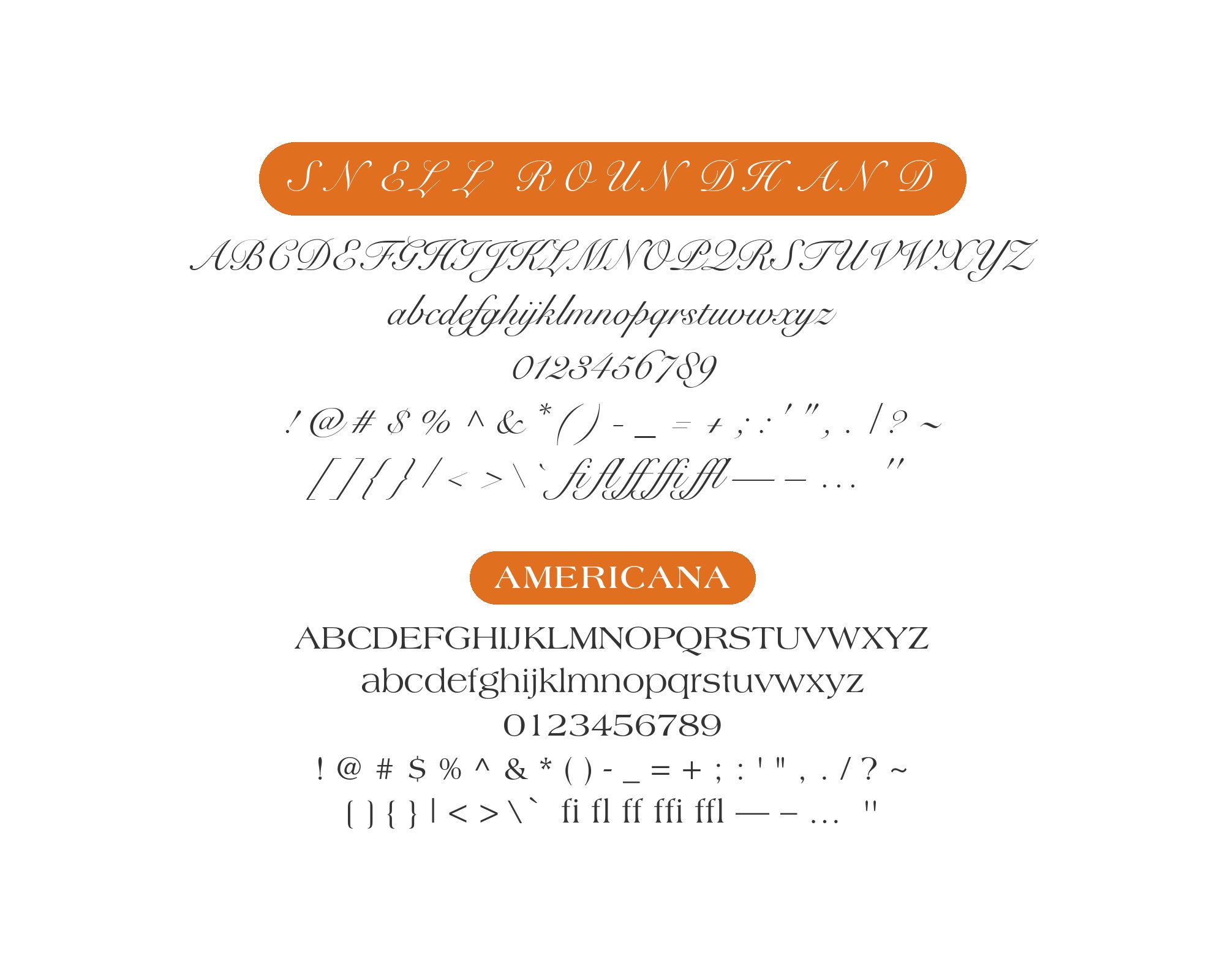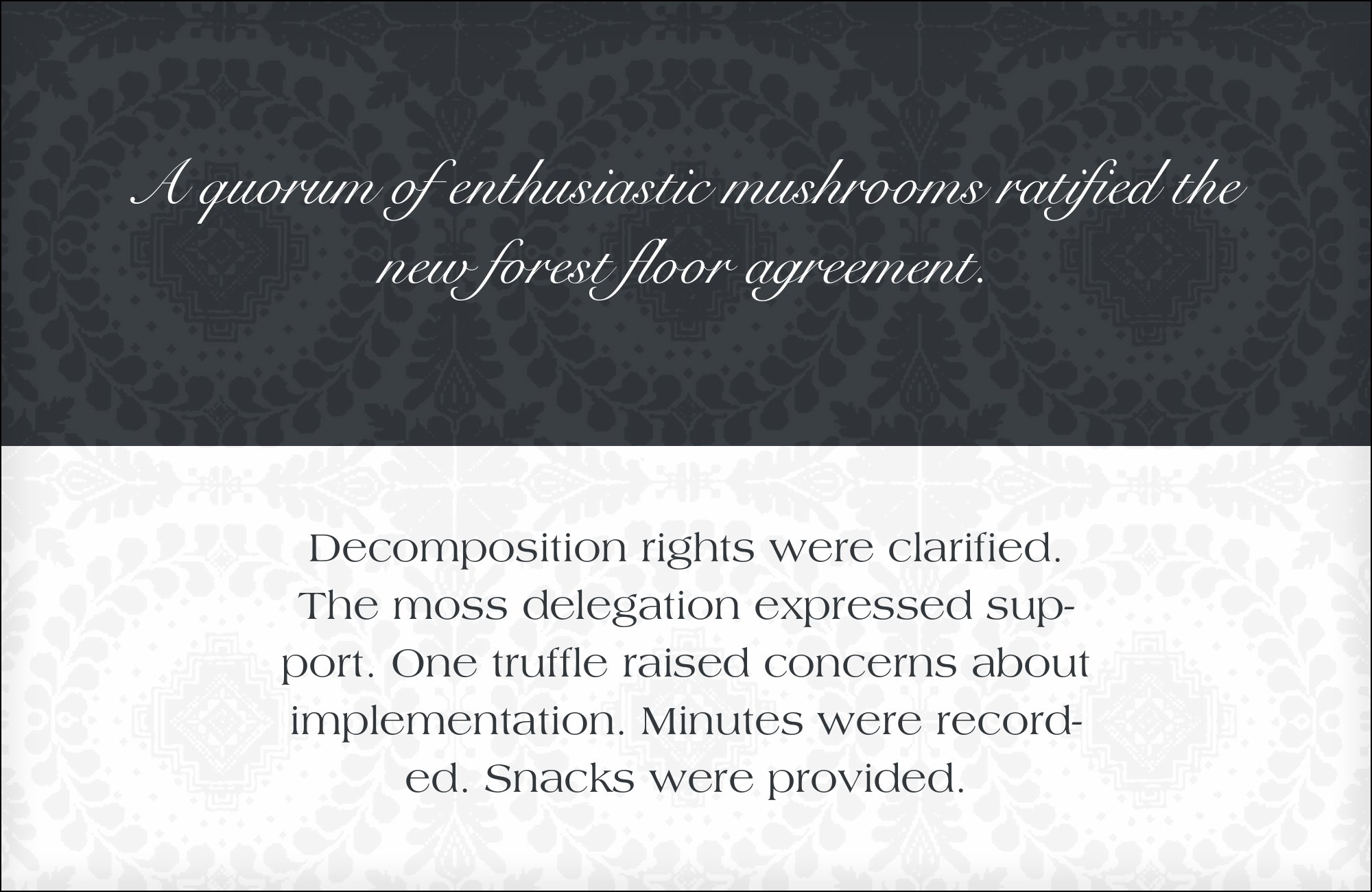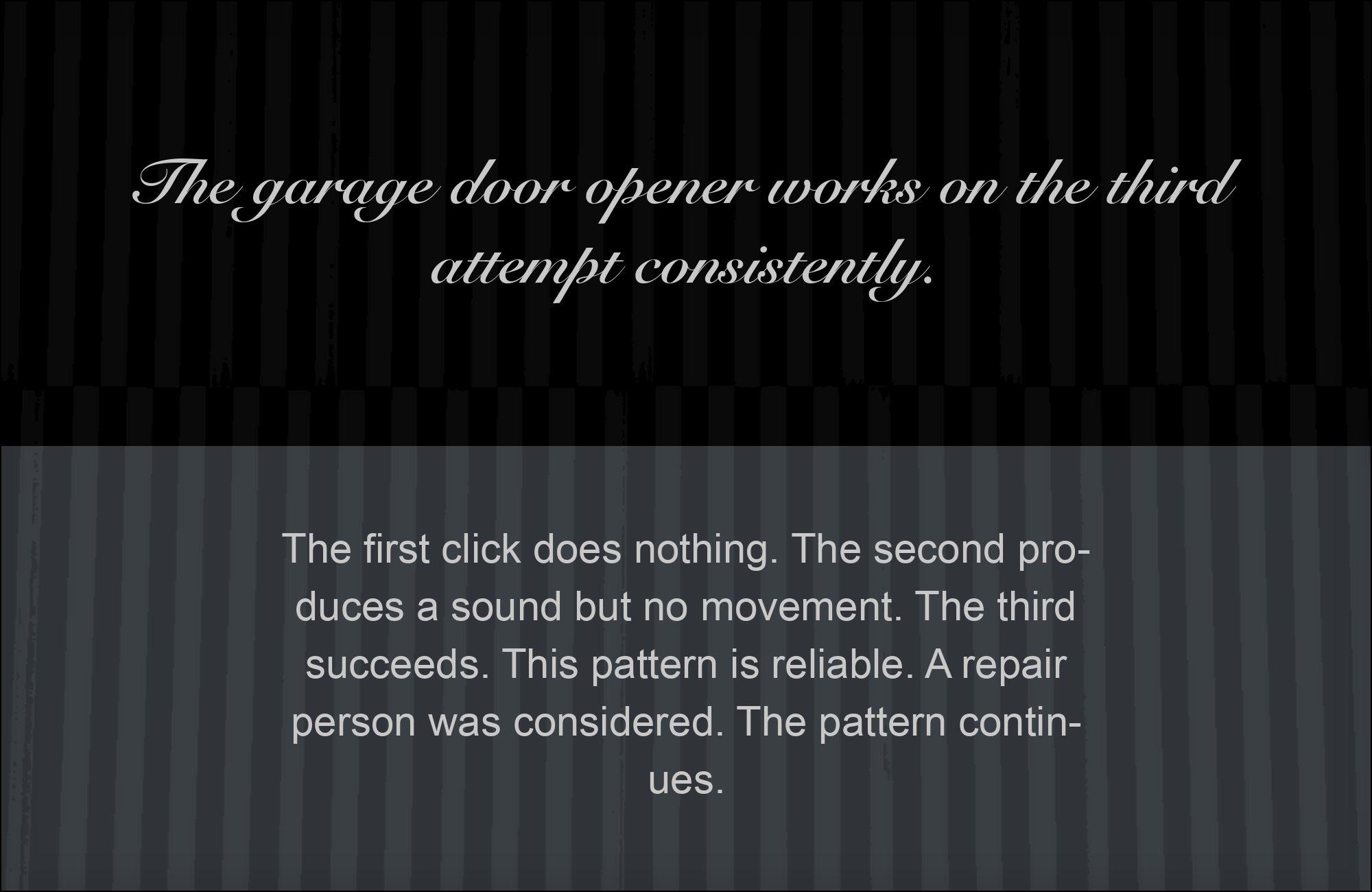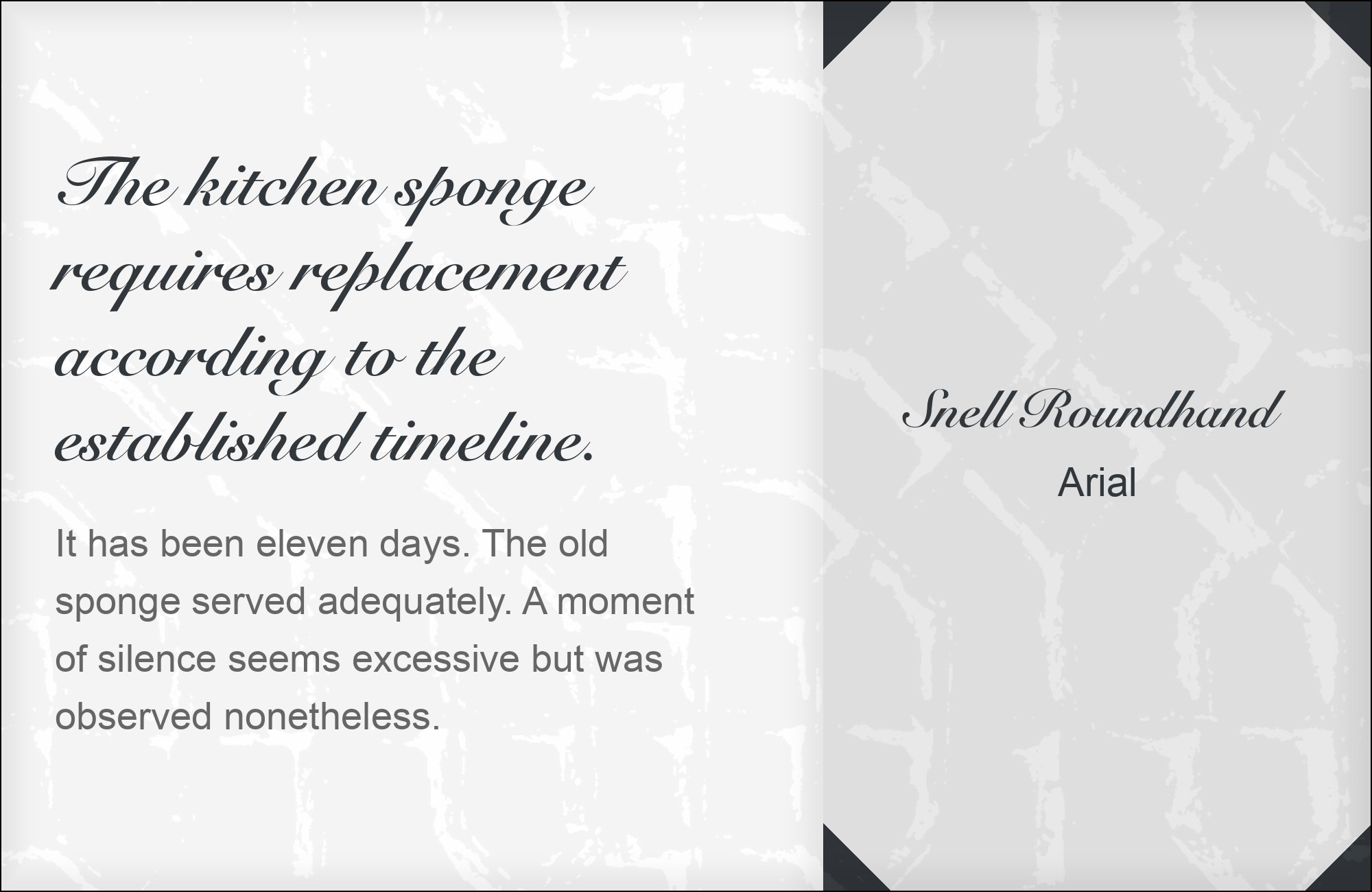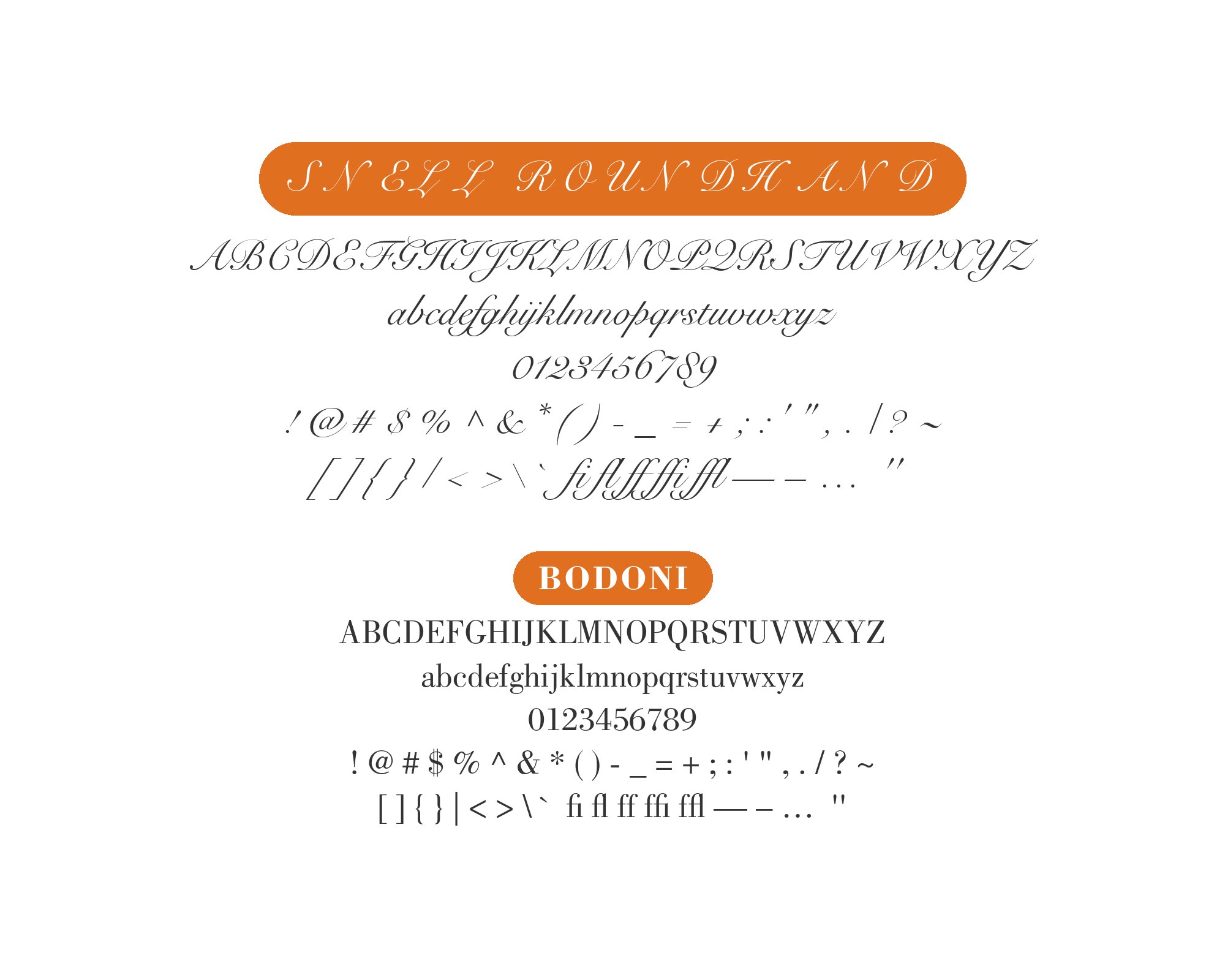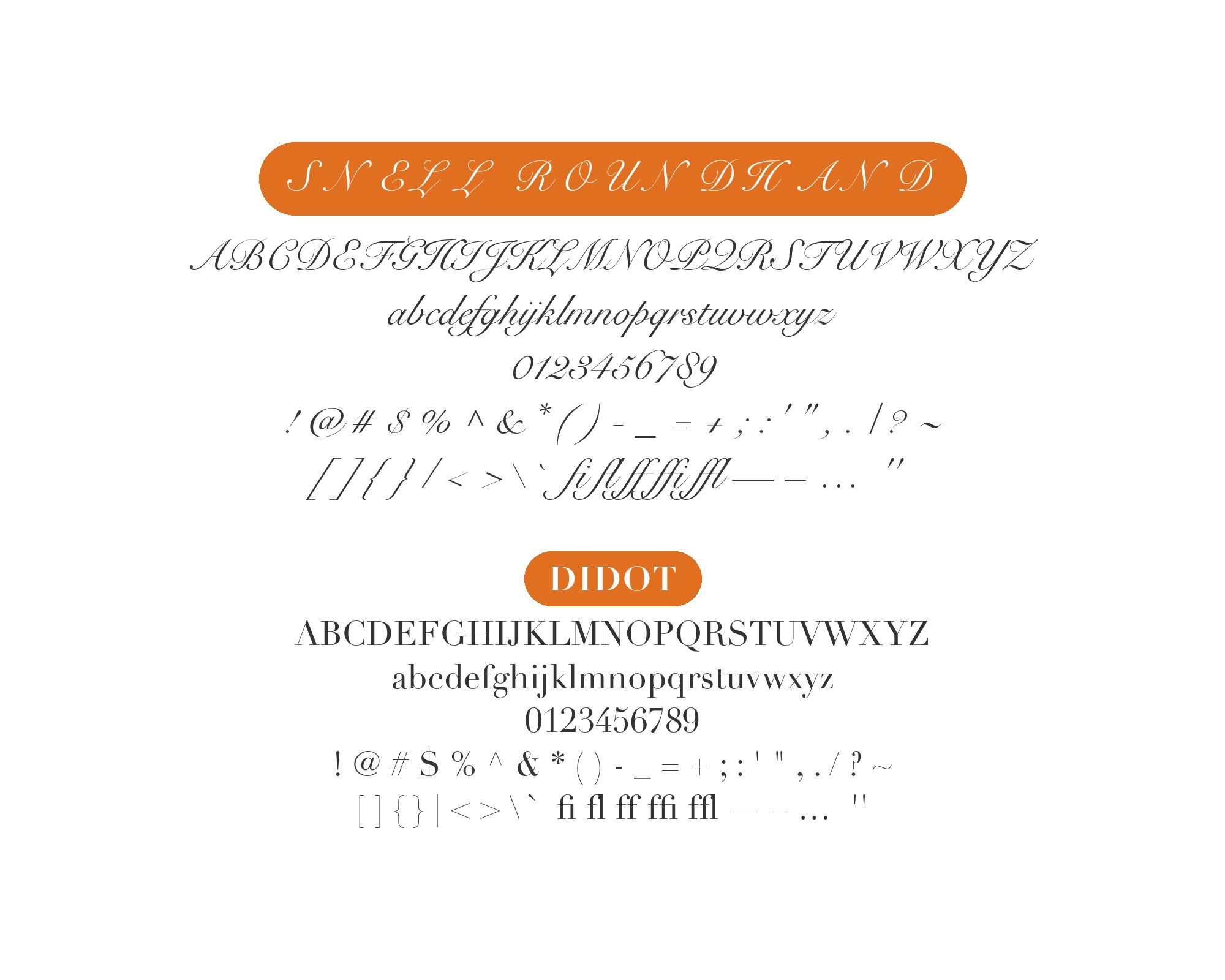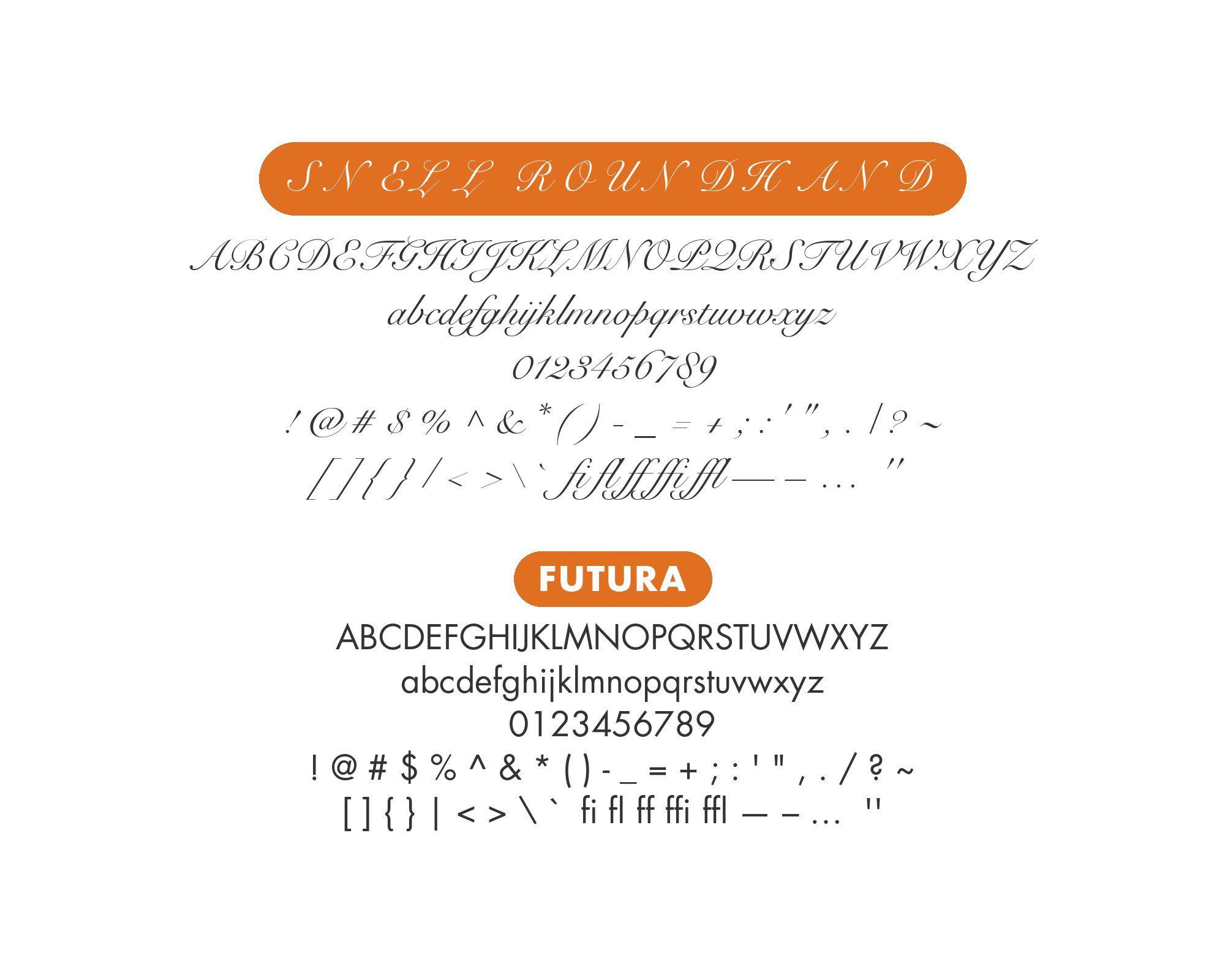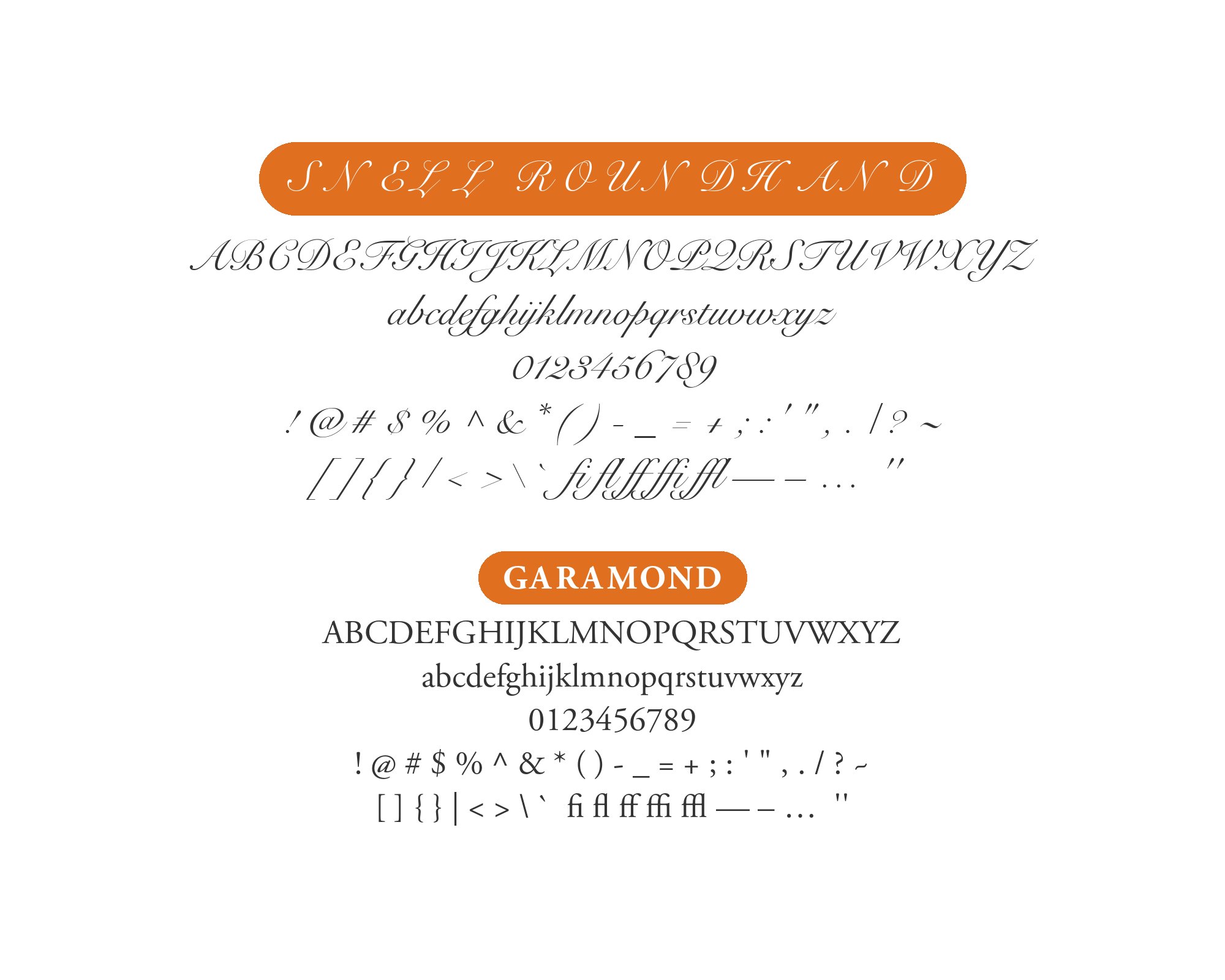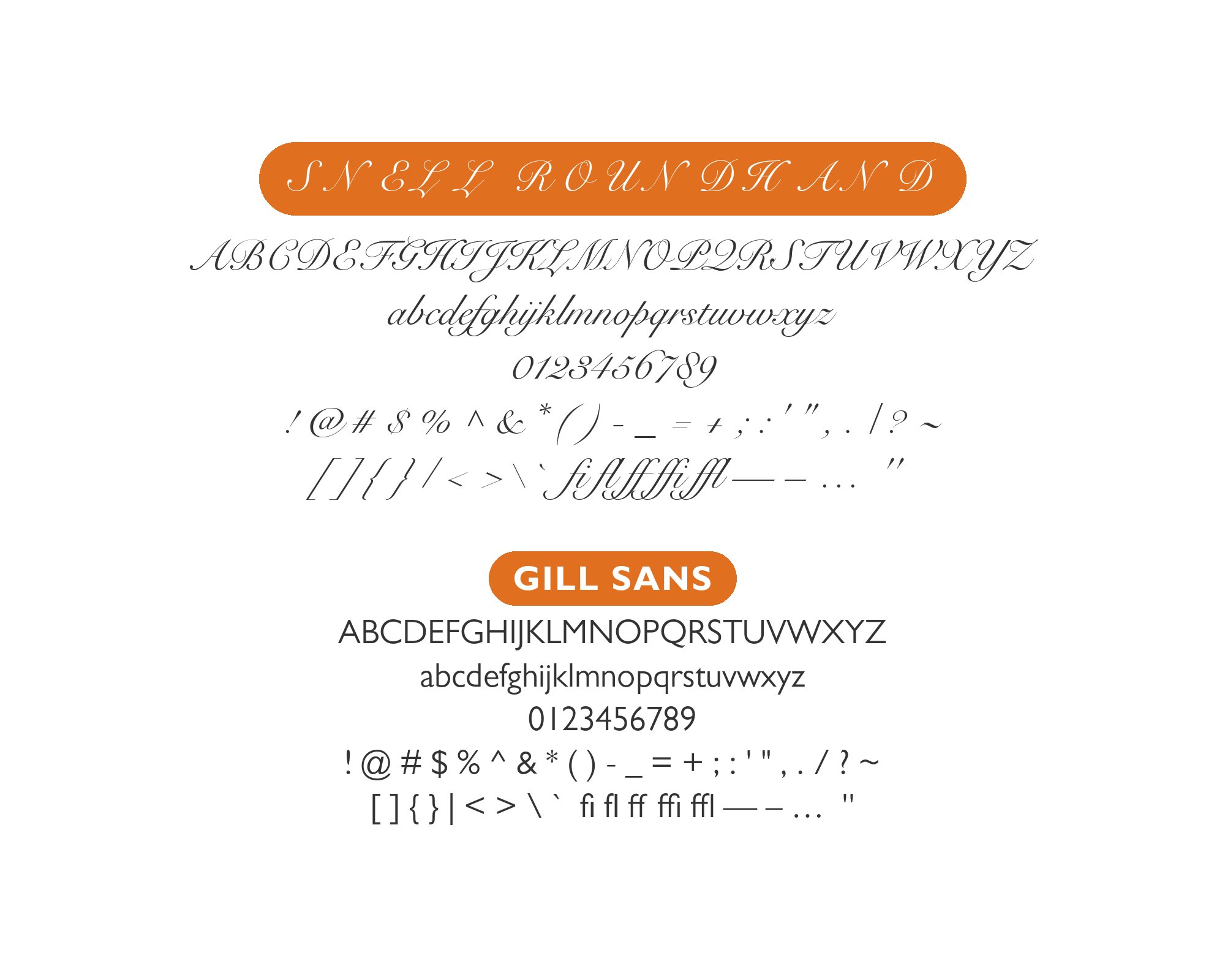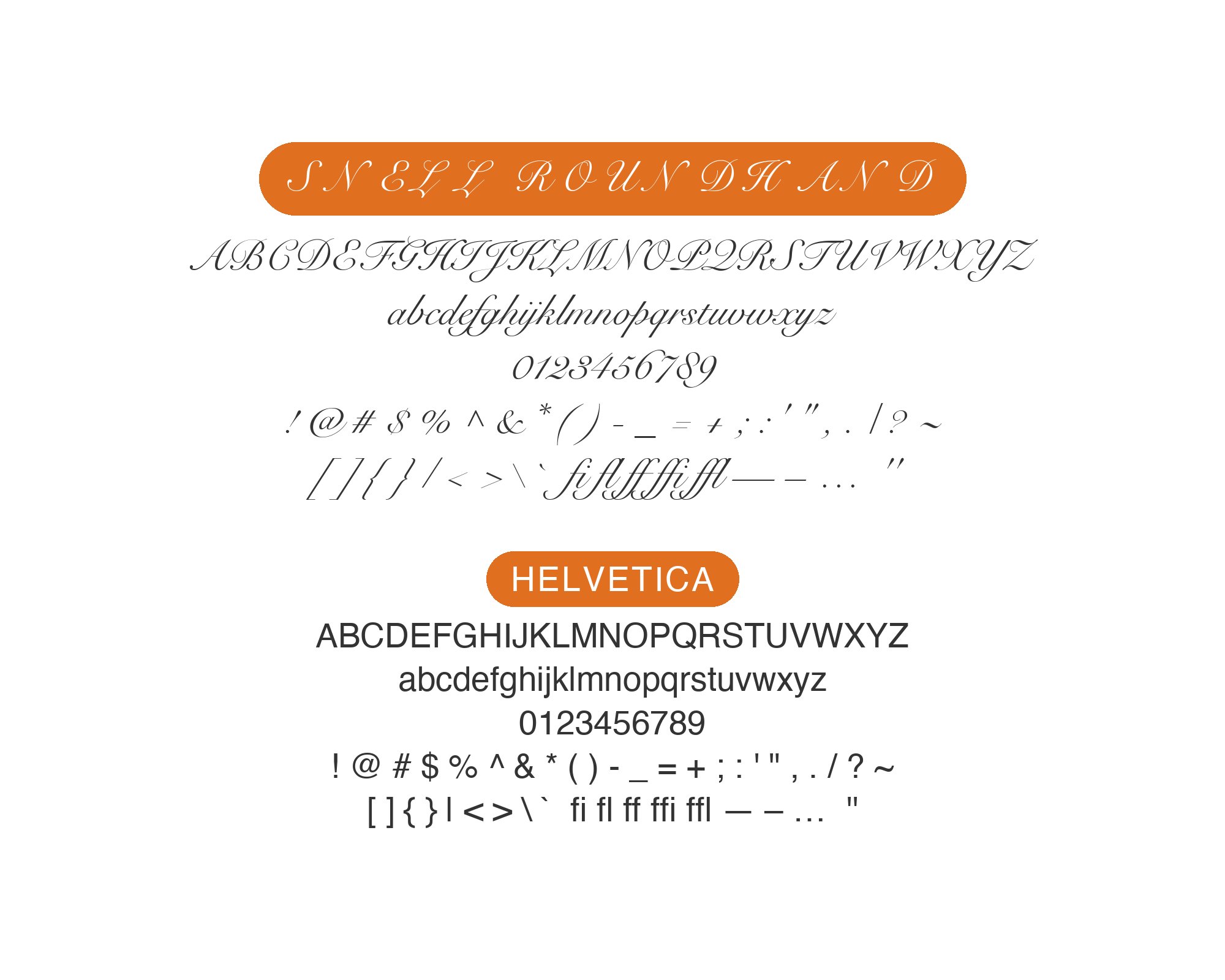
Snell Roundhand pairs great with Helvetica, Helvetica Neue and Americana. All 15 pairings are shown below in real rendered specimens, with the reason each one works.
What fonts go with Snell Roundhand? Almost none of them, if you go looking for a second decorative face. A formal connecting script is already the loudest thing on the page, and the partner’s only job is to be sober enough to carry everything the script cannot.
Sources disagree on the date: Adobe Fonts says Matthew Carter designed Snell Roundhand in 1965, while Typewolf and Fonts In Use date it to 1966. Carter translated the hand of the seventeenth-century English writing master Charles Snell into type for photocomposition. Carter later added bold and black weights to the original, and Bitstream released its own version under the name Roundhand. Apple’s current macOS font list includes Snell Roundhand Regular, Bold, and Black, which makes the family readily available to Mac users. The letterforms carry extreme stroke contrast — swelling shaded downstrokes against hairline upstrokes — on a steep slope, with long ascenders, deep descenders and capitals built from looping flourishes that were designed to work as initials next to other alphabets.
What the record shows is role separation, not contrast for its own sake: the script supplies the signature, and one plain text face supplies the argument. Across archived uses and identity manuals, recurring partners include neutral sans serifs and classical serifs. My practical rule is to avoid a second script and reserve Snell Roundhand for display use. Its fine strokes and connected forms need testing at the intended size and output medium. Here are 15 fonts that pair well with Snell Roundhand, ordered by how well the evidence supports them.
1. Helvetica
Max Miedinger and Eduard Hoffmann designed Helvetica at Switzerland’s Haas Type Foundry in 1957, and in 1959 it was adapted for Linotype machines and renamed Helvetica. Fonts In Use production pages for Phyllis Hyman, Le Ciel Noir and Bar Versini document Helvetica with Snell Roundhand; a separate whitehouse.gov survey covering 2000-2026 lists both but does not prove they appeared together in one design. The structural reason is total absence of calligraphic memory: Helvetica’s strokes are near-uniform, its terminals cut on the horizontal, its apertures closed, its axis perfectly vertical. Nothing in it recalls a pen, so nothing in it competes with the roundhand’s shaded downstrokes. The 1977 Phyllis Hyman album cover shows the division in its purest form — the singer’s name set in Snell, the entire back cover, including credits and track listing, set in styles of Helvetica. Use it exactly that way: Snell for the name or masthead, Helvetica for every other word on the surface.
2. Helvetica Neue
Linotype’s 1983 redraw of Helvetica, published as Neue Helvetica, rationalised the family onto a numbered two-digit grid and evened out optical weights that had drifted apart across decades of separate cuts. Production pages for Drake’s More Life, PEW PEW PEW and Online Gallery Magazine list Helvetica Neue with Snell Roundhand; the whitehouse.gov survey is supporting historical evidence only. Its advantage in this pairing is range rather than shape: a script gives you one register and one weight of voice, so the partner has to supply every subordinate level — deck, caption, label, legal line — without any style breaking rank. The artwork for Drake’s More Life uses Neue Helvetica, mostly Black Extended, with Snell Roundhand. Build the hierarchy in Helvetica Neue first, then add the script once.
3. Americana
Richard Isbell designed Americana for American Type Founders in 1966, the year Typewolf gives for Snell Roundhand, as a flare-serif face whose stems swell outward into shallow, unbracketed flares rather than terminating in true serifs. Americana is Typewolf’s own suggested pairing for Snell Roundhand, and it is the only named editorial recommendation to be found for this face. The reasoning holds structurally. Americana’s letterforms are unusually wide with a large x-height, which gives standing text a stable, airy measure under the horizontal sprawl a connecting script demands, and its flared stems quietly echo the roundhand’s swelling strokes without ever becoming cursive themselves. Because the two faces are effectively the same vintage, the combination also reads as period-coherent rather than assembled. It suits an invitation or event program, where Snell sets the headings and Americana the standing text.
4. Trade Gothic
Jackson Burke designed Trade Gothic for Linotype beginning in 1948 and expanded it through 1960 into a family of widths, drawing on Akzidenz-Grotesk. It appears with Snell Roundhand on Roxette’s Room Service and the Enablis annual report. The 2001 Roxette Room Service sleeve is the instructive one: the band name is Snell Roundhand, and the album title is Trade Gothic Bold Condensed No. 20 horizontally squeezed to eighty percent. That is a deliberate extreme — the narrowest available sans set against the widest possible script. Condensed grotesques buy back the horizontal space a roundhand spends on entry and exit strokes, which is why they keep appearing on packaging and record sleeves where width is scarce. Use Trade Gothic for a track list or an ingredient panel — anything that must fit a fixed measure.
Talk to Douglas5. Futura
Paul Renner designed Futura for the Bauer foundry in 1927 from compass-and-straightedge geometry — circular bowls, pointed apexes, a single-storey a and a low x-height that gives the face its long, spare ascenders. It appears with Snell Roundhand on Blue Bell Ice Cream’s packaging and Roxette’s 1992 “Church of Your Heart” sleeve, where the band name is Futura Bold and the back cover carries Futura Extra Bold. Geometric construction shares no ancestry at all with a written hand: the roundhand records the pressure and angle of a flexible nib, while Futura records a drawing instrument. Nothing about the meeting is accidental-looking, which is the point. Reserve Snell for the brand signature and let Futura carry flavour names, weights, dates and every other piece of factual copy.
6. Garamond
Claude Garamond cut the original French Renaissance romans in the mid-sixteenth century, and Robert Slimbach’s 1989 revival for Adobe is the version documented here: Garamond appears on the back cover of that Roxette single, a sleeve that also uses Snell Roundhand. An old-style serif is the closest relative Snell has among text faces. Both descend from pen-made letters, so both carry an angled stress, an oblique axis through the bowls and a calligraphic asymmetry that a grotesque simply does not have. The difference is tempo: Garamond is the same logic slowed down, regularised and set upright for reading at length. Its small x-height and fine modelling make it a poor screen choice but an excellent print one. Use it for invitation body copy and anything else that must be read in quantity on paper.
7. Bembo
Monotype issued Bembo in 1929, based on the roman Francesco Griffo cut for Aldus Manutius in 1495. Those capitals are the reason it works here. On Roxette’s 1992 “Church of Your Heart” sleeve the title is set in Bembo caps on a sleeve that also uses Snell Roundhand, and the caps hold their ground without raising their voice: small apertures, modest contrast, classical width relationships and no flourishes anywhere. Set against a steeply sloped, looping script, a block of symmetrical inscriptional capitals reads as architecture rather than as a second lettering style. Bembo’s low x-height also keeps it visually subordinate at matched point sizes. Use it for book jackets, record sleeves and title pages where a short line of caps must sit above or below the script.
Stuck on AI? Let's sit down together.
One hour, your screen, your questions.
Book an Hour8. Goudy Old Style
Frederic Goudy designed Goudy Old Style for American Type Founders in 1915, giving it diamond-shaped dots, a slightly upturned ear on the g and curves that retain a trace of the drawing hand rather than being fully rationalised. It appears with Snell Roundhand on Blue Bell Ice Cream’s packaging, alongside the decorative inline companion Goudy Handtooled. That combination is the standard American heritage formula and it is worth copying deliberately: a connecting script for the founder’s or maker’s signature, a warm early-twentieth-century old style for the product description underneath. Goudy’s residual irregularity supplies period warmth, but its letters are separate, upright and fully legible at small size, so it never reads as a second script. Use it for heritage food packaging where the brand wants to sound long-established rather than merely formal.
9. Univers
Adrian Frutiger designed Univers for Deberny & Peignot in 1957, releasing it as a coordinated system of variants identified by two-digit numbers rather than by names, with weight on the first digit and width on the second. It appears with Snell Roundhand in Cossette’s 2010 Enablis annual report, a document built on bold typographic contrast. Systematic families matter most in long documents, where a designer needs eight or ten distinct levels of emphasis that all look related. Univers delivers that hierarchy from a single drawing logic, so the script can be rationed to one appearance per spread and still feel like part of the same system rather than a pasted-in ornament. Use it for a long annual report, where a script would exhaust the reader if it repeated.
10. Gill Sans
Eric Gill designed Gill Sans for Monotype in 1928, developing it from Edward Johnston’s London Underground alphabet and building it on humanist rather than grotesque skeletons: classical Roman width relationships, a near-circular O, a two-storey a and a g with a distinctive open lower bowl. It sets the secondary text on the 2025 Jennie Ruby campaign posters, where Snell Roundhand is one of three faces used consistently through the rollout. Gill Sans occupies a useful middle position for this pairing. Its proportions come from written and inscribed letters, so it shares a distant pedigree with the roundhand, but the strokes are monoline and the axis is upright, so it reads as calm. Use it for fashion and music campaign material where a pure Swiss grotesque would feel too cold beneath the script.
11. Franklin Gothic
Morris Fuller Benton designed Franklin Gothic for American Type Founders in 1902, and it became the definitive heavy American gothic: sturdy, slightly irregular, with a large x-height, tight apertures and a thickness that reads as plain-spoken rather than refined. It appears with Snell Roundhand on You Don’t Know Jack volume 3 from 1997, and the ratio there is the whole lesson. Franklin Gothic is the primary typeface of the entire product, while Snell Roundhand Black shows up exactly once, for a single flourished word on the disc label. Franklin Gothic actively refuses elegance, which is why it protects the script’s monopoly on elegance instead of diluting it. Use it as the loud, unpretentious workhorse of a packaging system, and let the script appear once as a punchline.
12. Didot
Firmin Didot cut types in Paris between 1784 and 1811, and Adrian Frutiger drew the Didot family for Linotype in 1991; that version is documented with Snell Roundhand in the Enablis 2010 annual report. My reason for recommending the combination is visual: both have pronounced thick-thin contrast, while Didot’s upright construction separates it from Snell’s connected slope. Keep both at display size, on coated stock or high-density screens, and hand the body copy to a sturdier face entirely. Proof the final output size.
13. Bodoni
Giambattista Bodoni (1740-1813) ran a printing office in Parma under the patronage of its duke, refining his types into the most severe of the classical serifs: flat unbracketed serifs that meet the stem at a right angle, a strictly vertical axis and an abrupt jump between thick and thin. Bodoni is documented with Snell Roundhand in Pepper Cake, a book that uses exactly three typefaces as a signalling device, switching face each time the source of a quoted sentence changes. That use suggests the best role for the pairing. Bodoni is mechanical enough to be read as a system marker rather than as decoration, so it can occupy a distinct third voice without blurring into the script. Set it for pull quotes, editorial section markers and cover lines, and keep the running text in something less brittle.
14. Arial
The ASEAN Corporate Design Manual uses Snell Roundhand for special official and celebratory applications while assigning Arial to correspondence, forms, websites, Word documents, and presentations. That is a clear division between ceremony and utility. Keep the script on a short commemorative line or signature and let Arial carry every instruction, date, and paragraph around it. Arial’s familiarity is useful here because it does not add another historical voice. Use regular or bold sans weights according to information hierarchy, but keep them smaller than the script. Equal-size lines make the system look like two templates colliding rather than one controlled identity.
15. Optima
A student graphic-standards project on a University of Oregon blog sets its museum logo in Optima and Snell Roundhand. Optima’s flared, upright humanist construction sits between serif and sans, giving the connected script a stable architectural base without copying its pen movement. Use Snell Roundhand for the name or signature and Optima for the descriptor, location, or institutional line beneath it. Both faces can feel elegant, so hierarchy must come from size and spacing rather than ornament. A compact Optima line with generous tracking under a larger script mark keeps the logo readable and prevents the supporting capitals from becoming a rival flourish.
The strongest examples here reserve Snell Roundhand for a limited role such as a name, title, signature, or accent, while another family carries the supporting text. Helvetica and Helvetica Neue have the most individual documented productions, with Trade Gothic, Univers, Gill Sans, Franklin Gothic and Futura filling a similar structural role in different registers. Choose the sans for its width and its family range, not for its personality.
The classical serifs offer the other legitimate route. Americana, Garamond, Bembo, Goudy Old Style, Didot and Bodoni all share some part of the script’s period or its pen-derived logic, which produces a coherent historical voice rather than a deliberate collision — the right move for invitations, heritage packaging and fashion editorial. Two constraints apply whichever route you take. Snell Roundhand’s hairlines and connected strokes fail at text sizes, so set it large and let the partner own everything small. And never introduce a second script: the archive shows what happens, and it reads as two hands arguing over the same page.